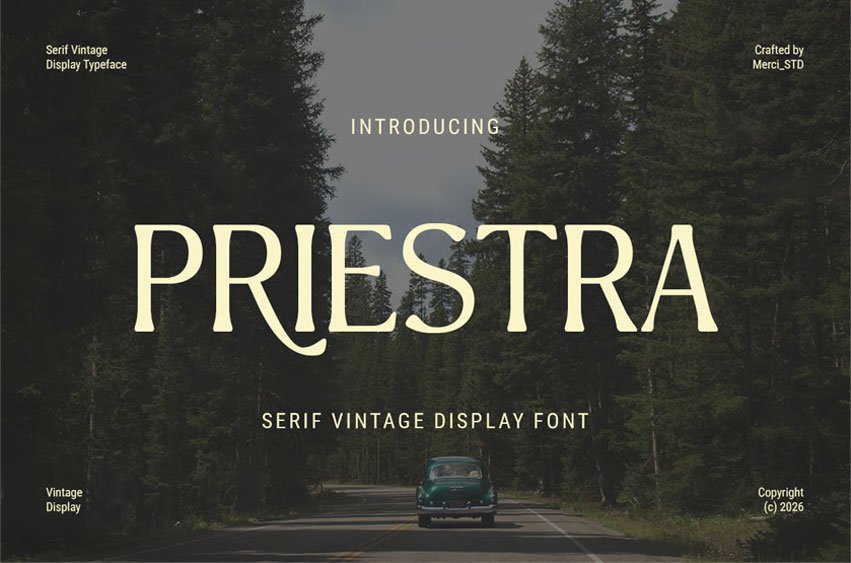
Priestra Font is a refined vintage serif display font with timeless elegance. Perfect for editorial, branding, logos, and classic themed designs.
- Uppercase Letters
- Ligature & Alternate Character
- Unique Hand-Drawn Style